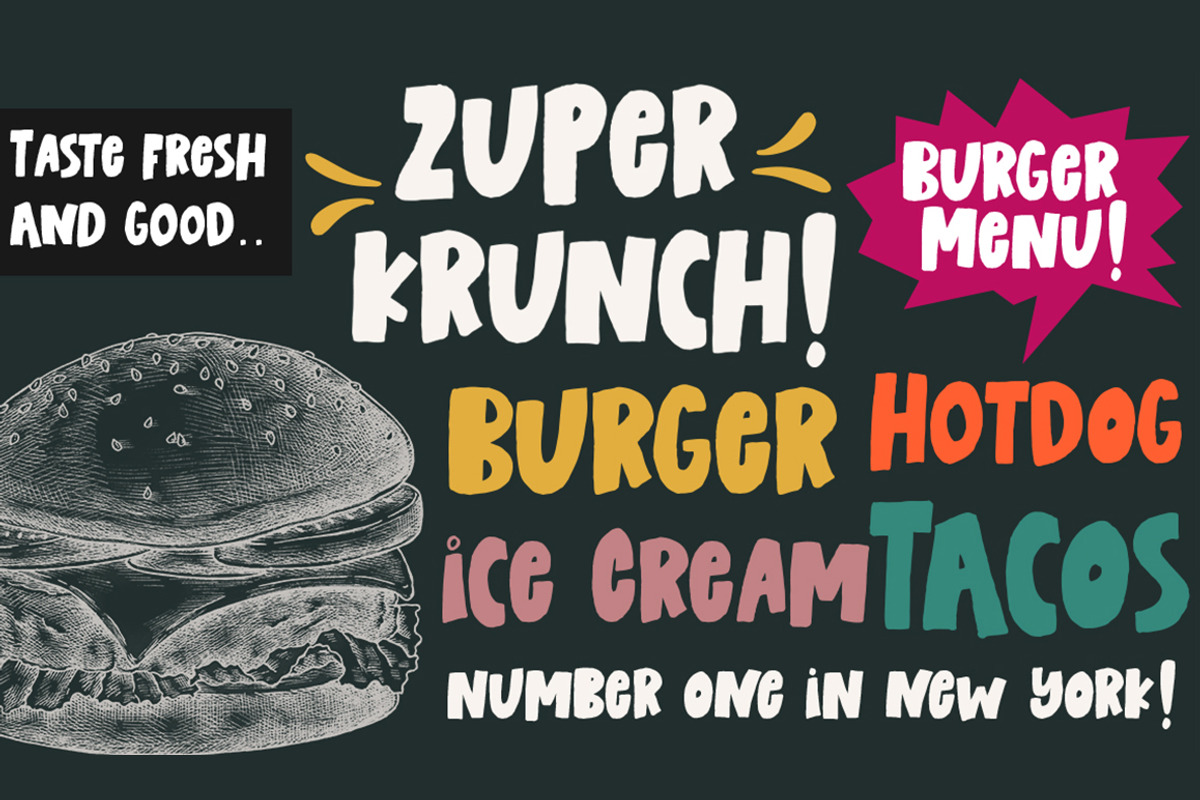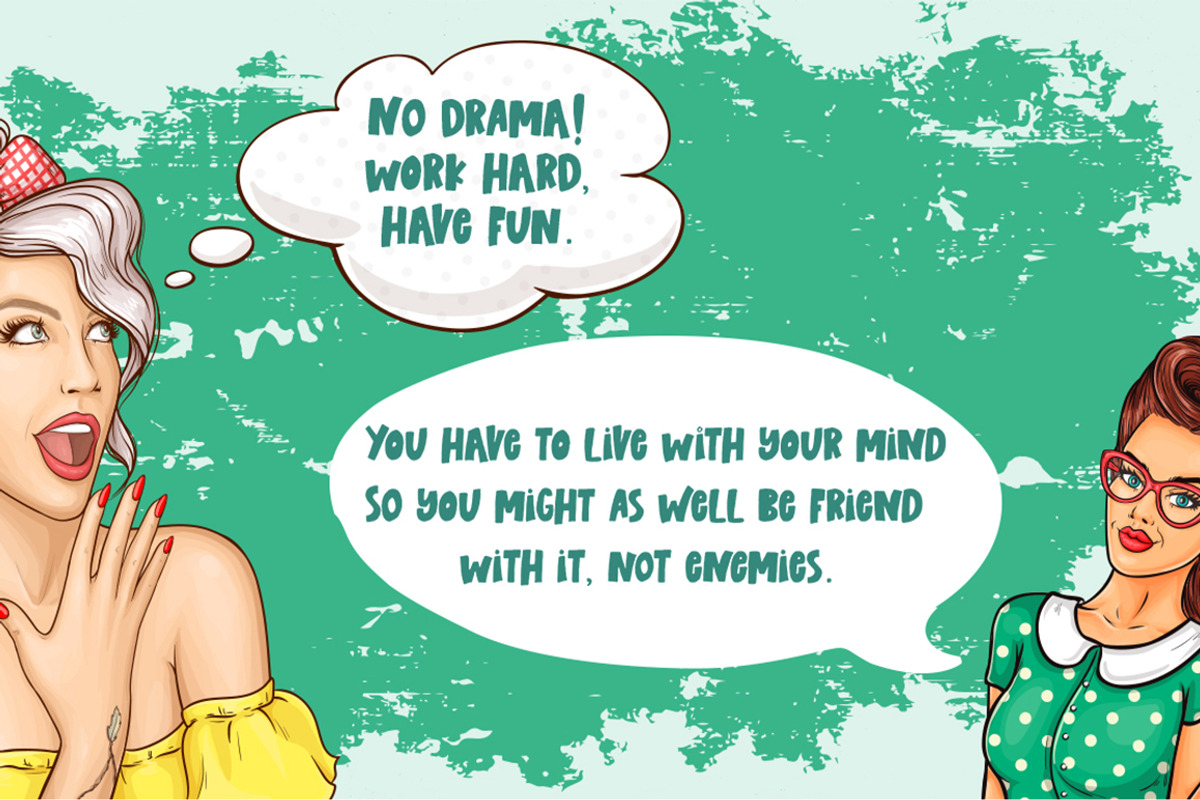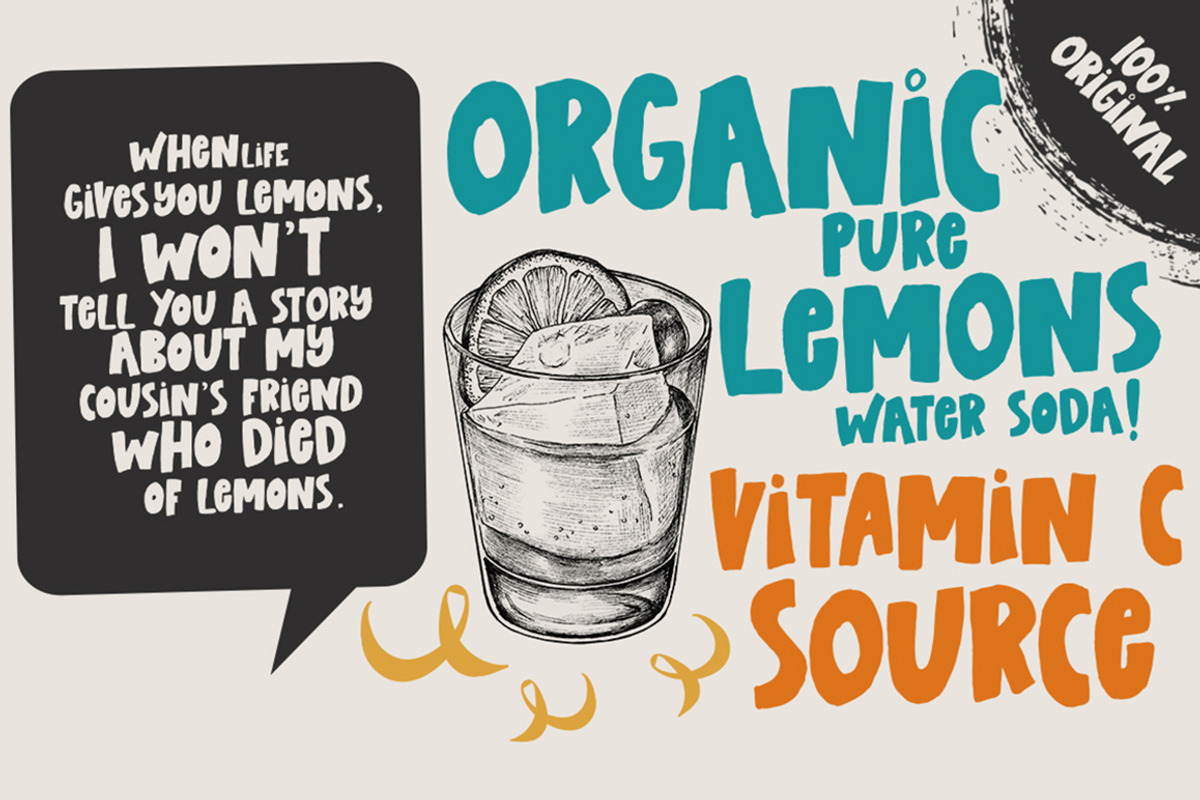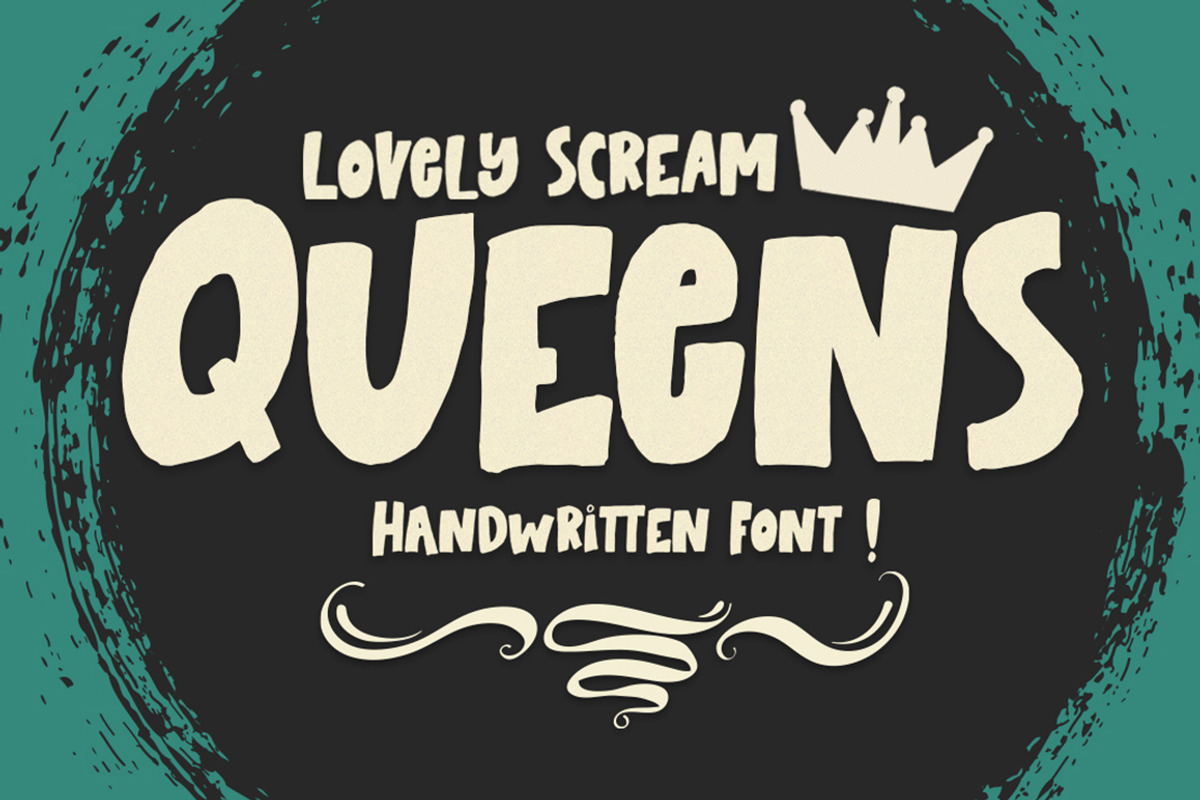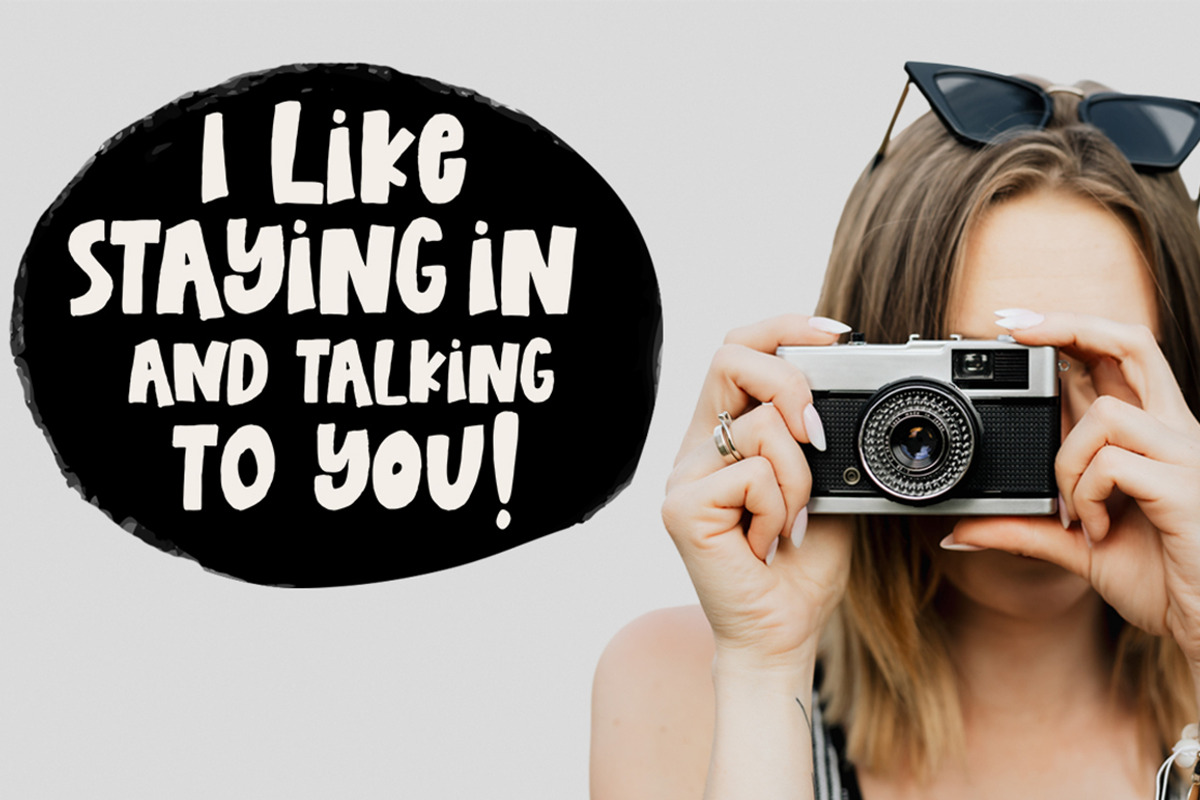
Lovely Scream Queens
Lovely Scream Queens is a hand brush font made with brushes and ink. This typeface is ideal for use in thick watercolor designs or in those needing a hand writing touch such as blog titles, posters, comic books, t-shirts, clothing, book covers, business cards, greeting cards, branding, merchandising and more.
Lovely Scream Queens contains a full set of:
- alternative n, b, i, w, l, e
- numbers
- multi-lingual support
Lovely Scream Queens Italic works in harmony with Lovely Scream Queens Regular to create exceptional typographic creations. Get inspiration from the preview above.